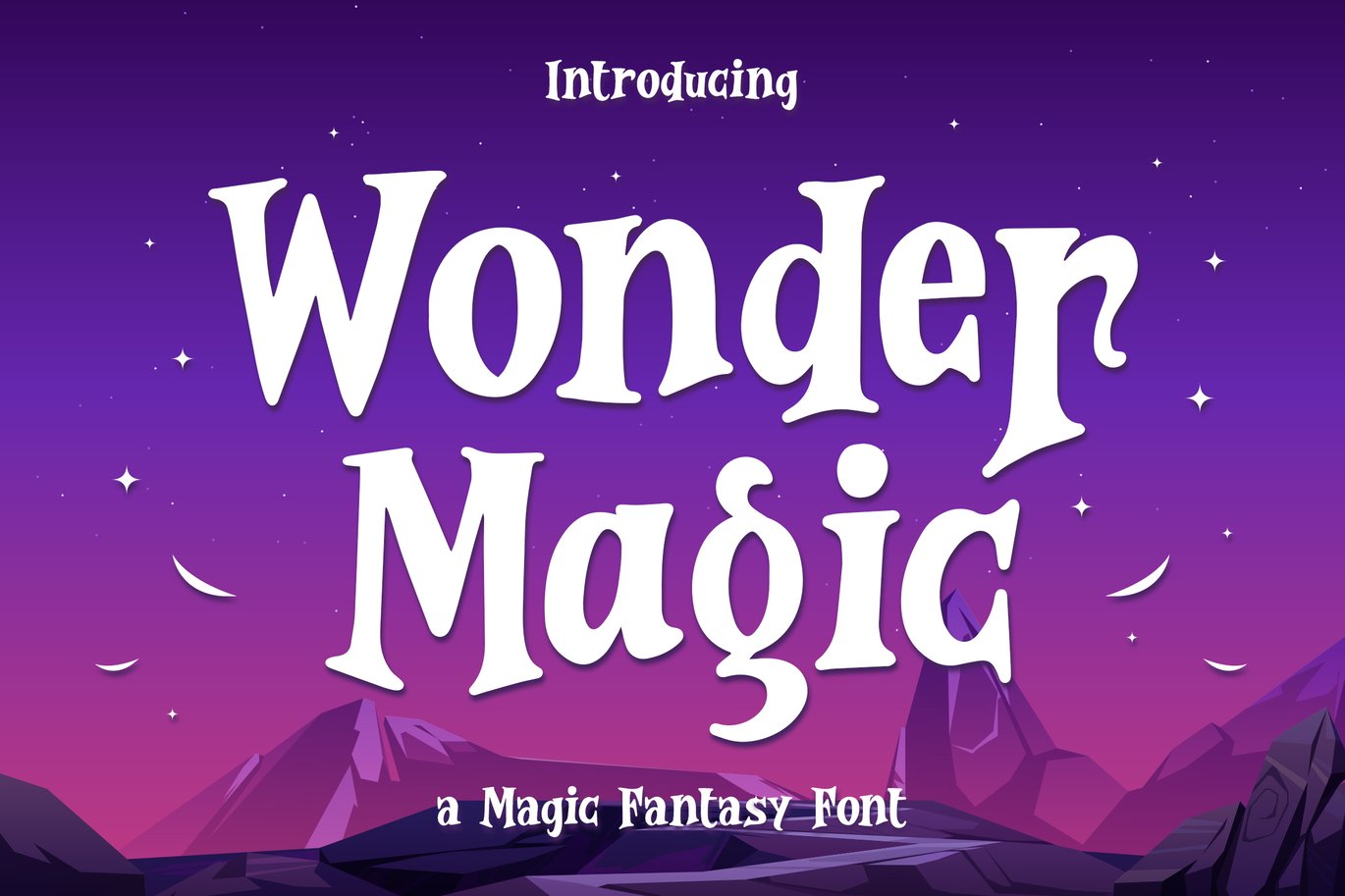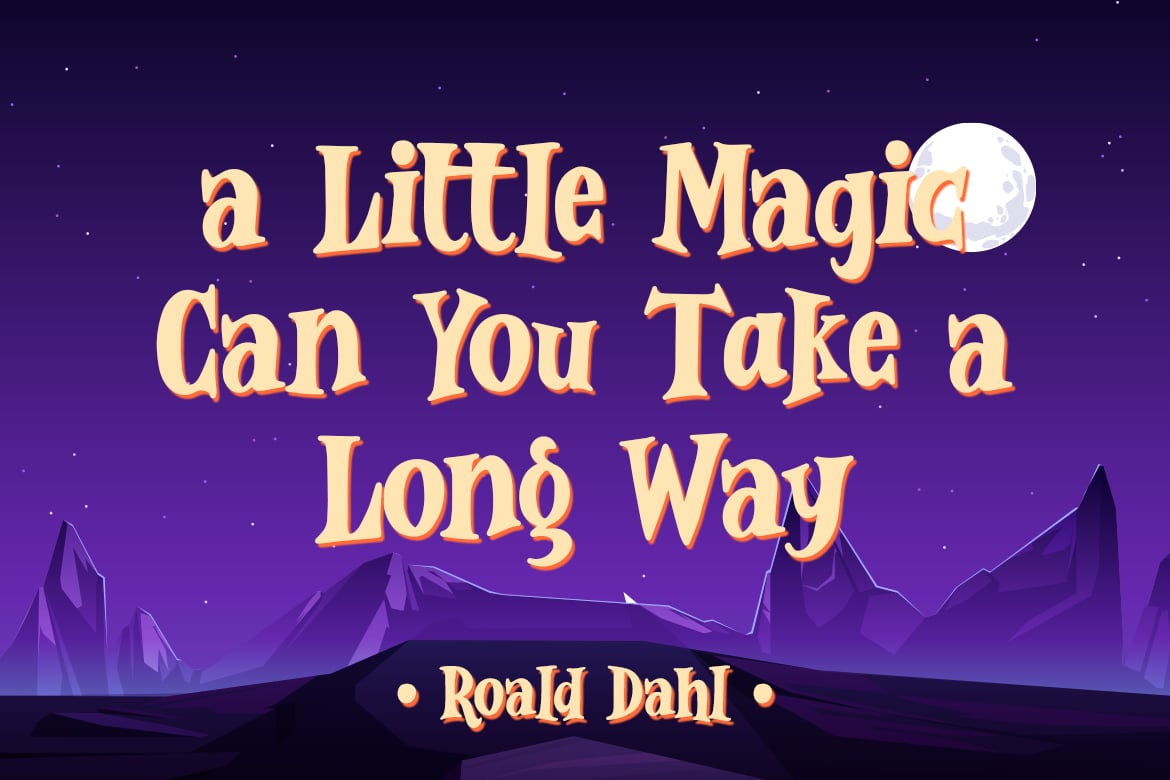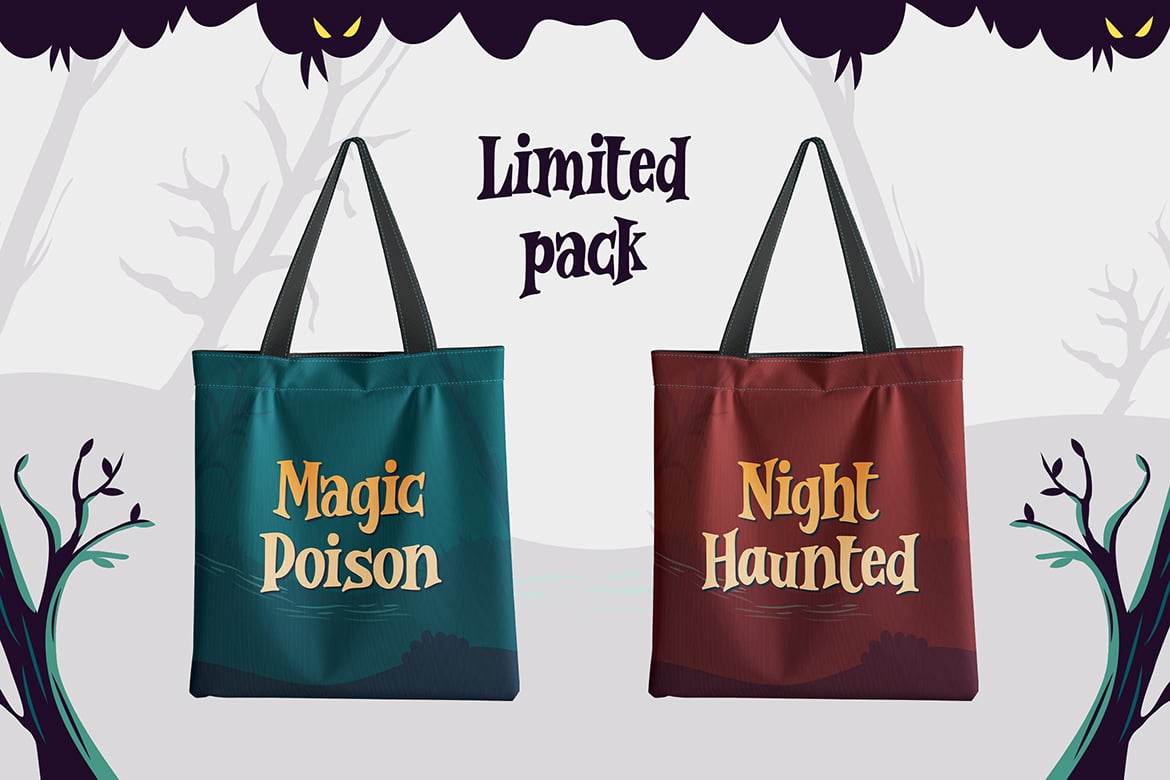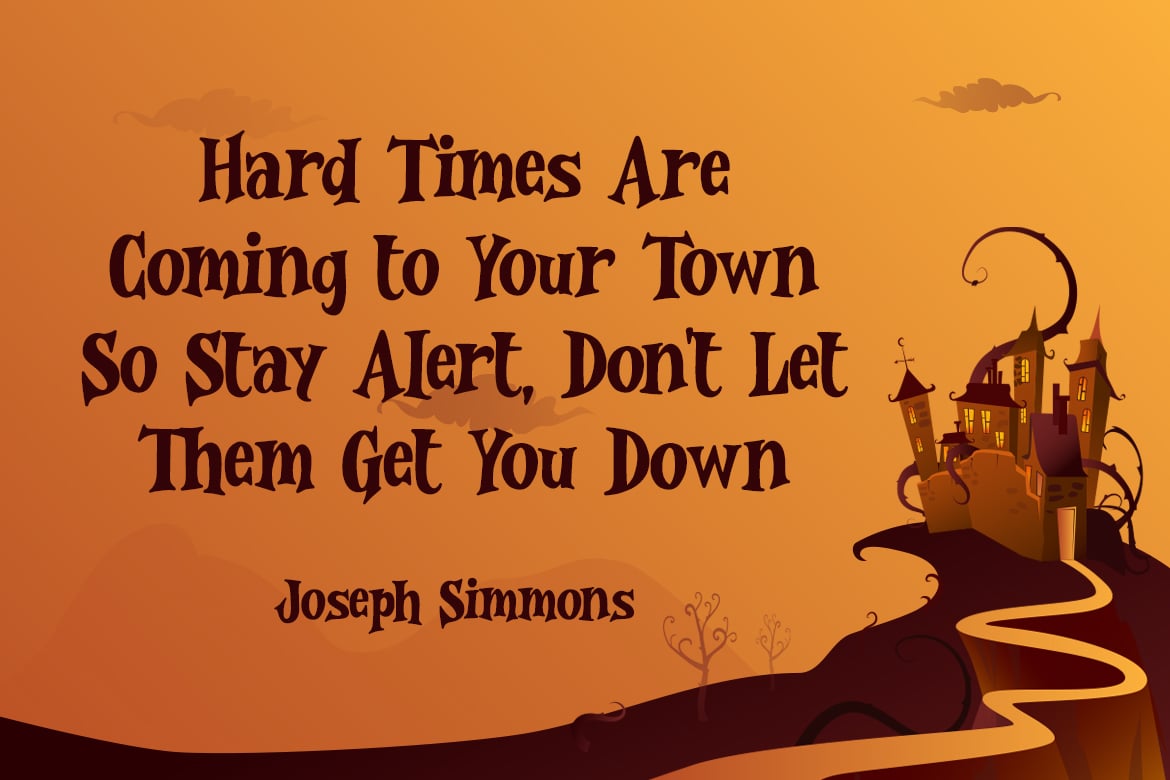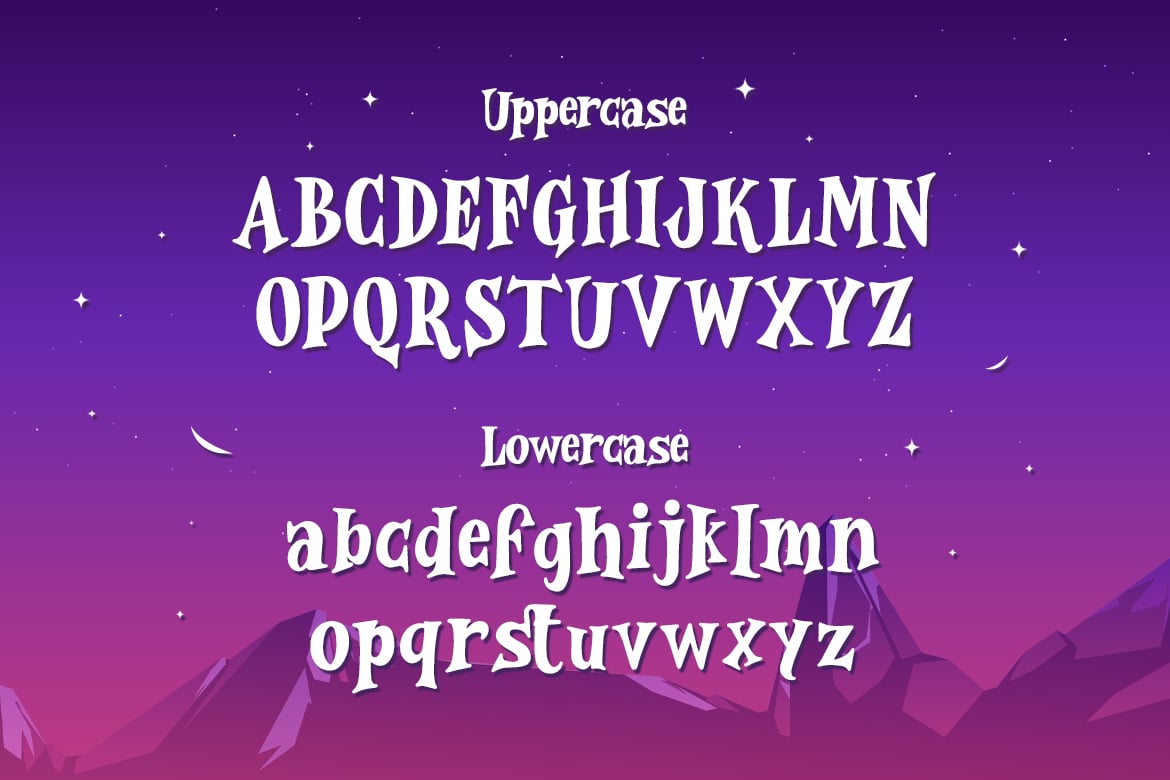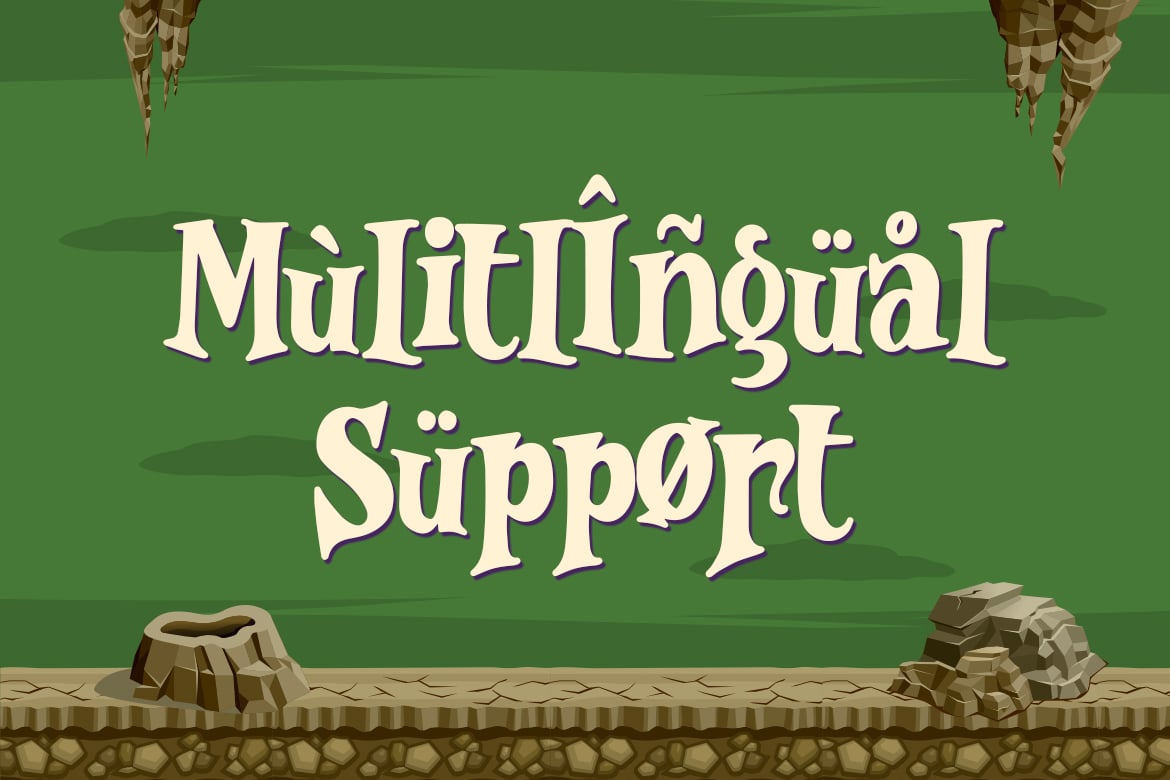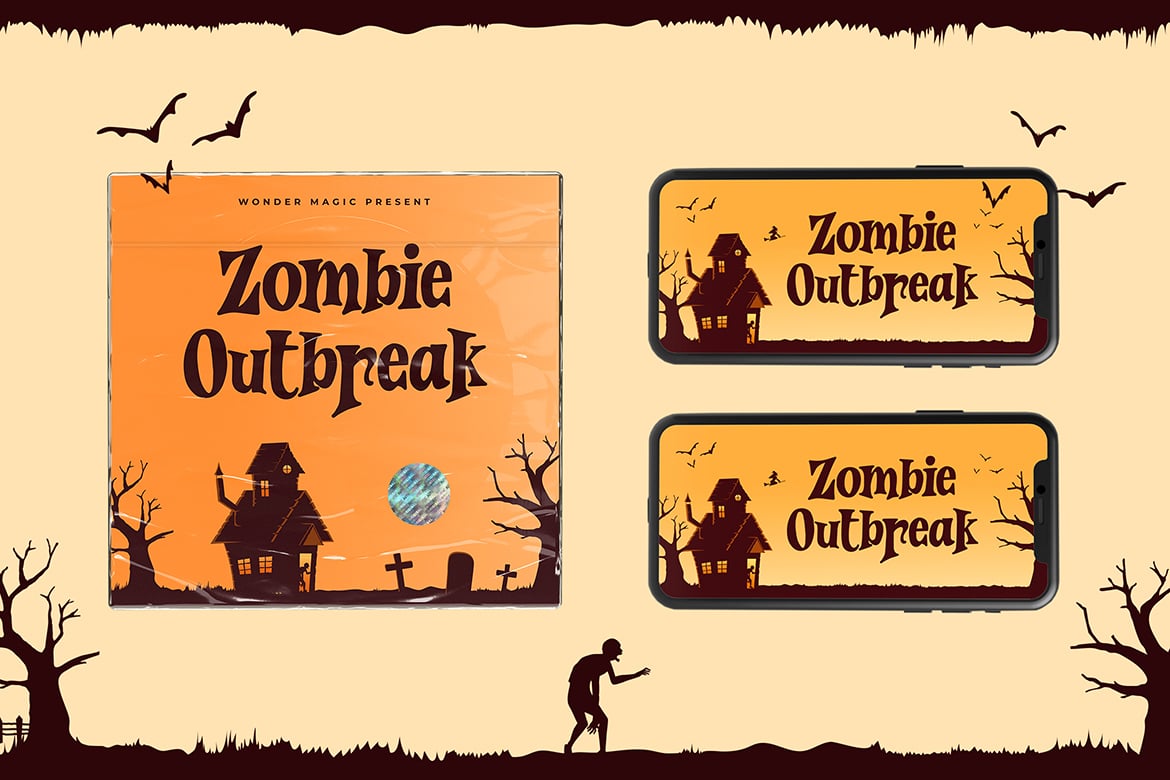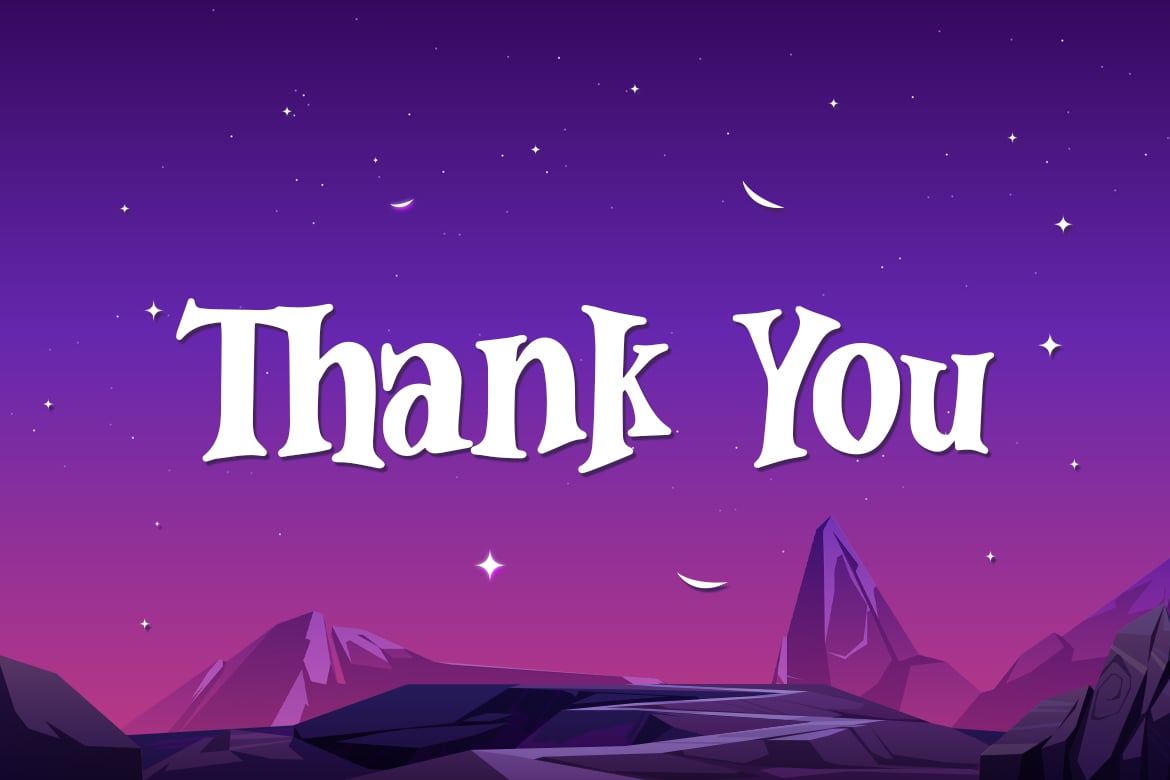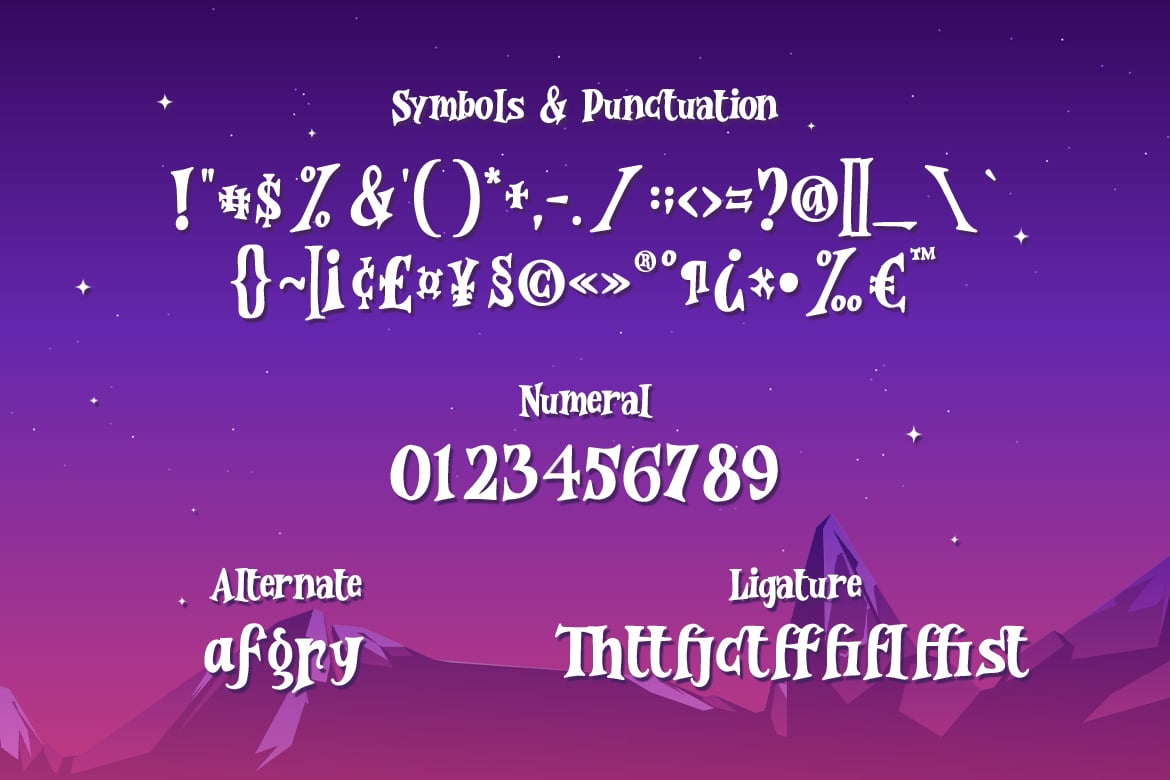
Wonder Magic – a Magic Fantasy Font
Wonder Magic is a lovely font that will immediately take you into a fairytale land.
Magic and a bit spooky, this serif font will be the ideal choice for any Halloween or October party design you wish to develop.